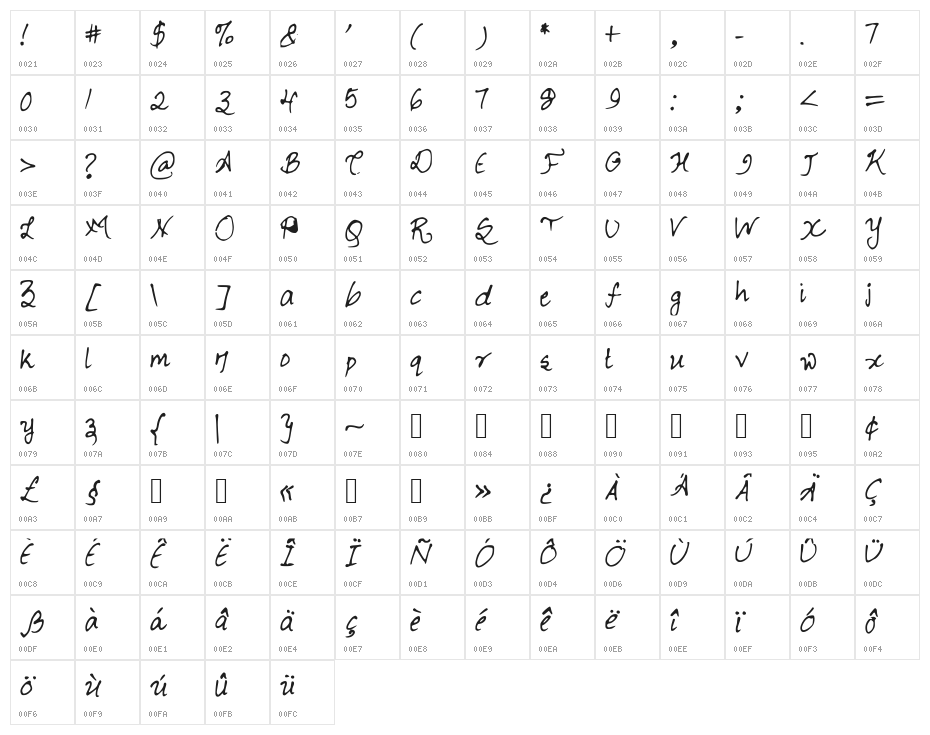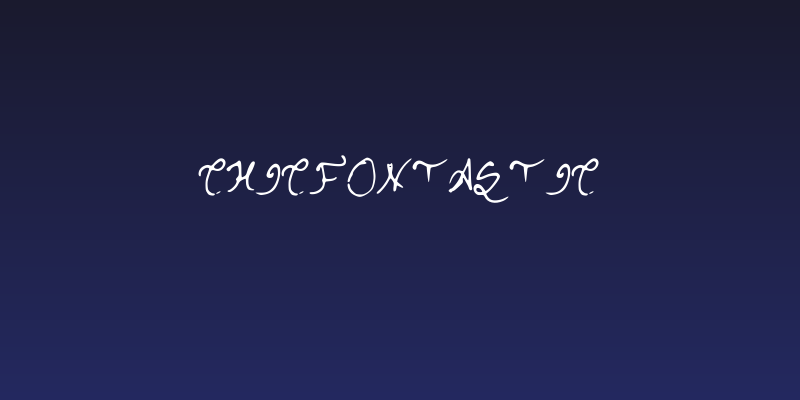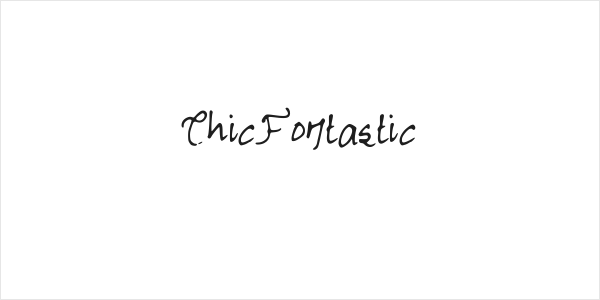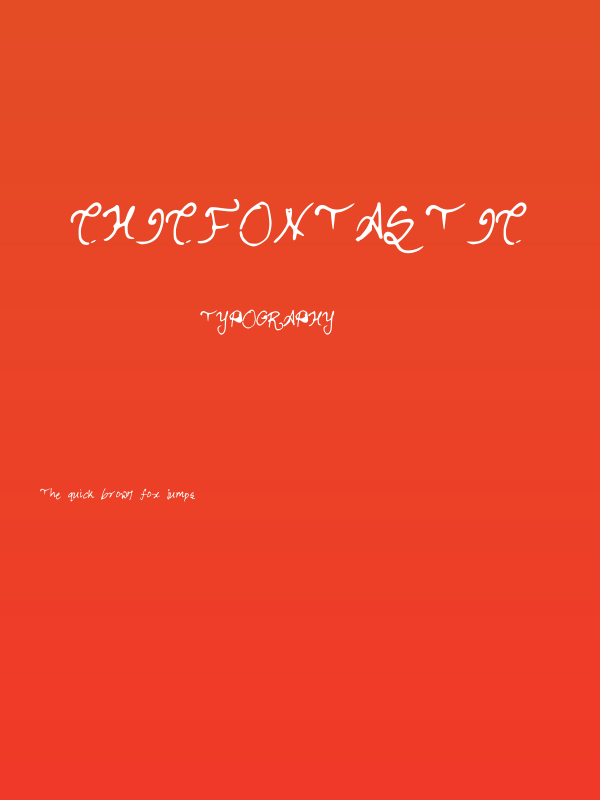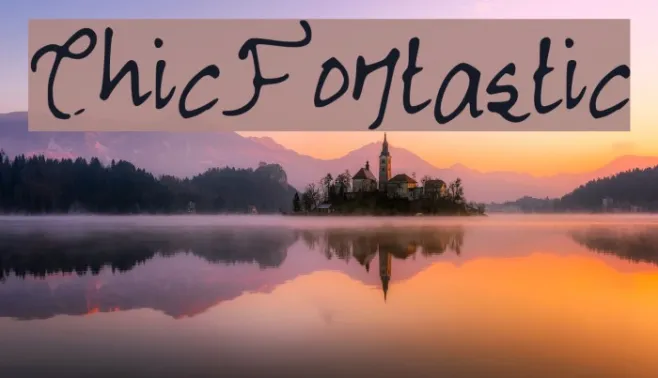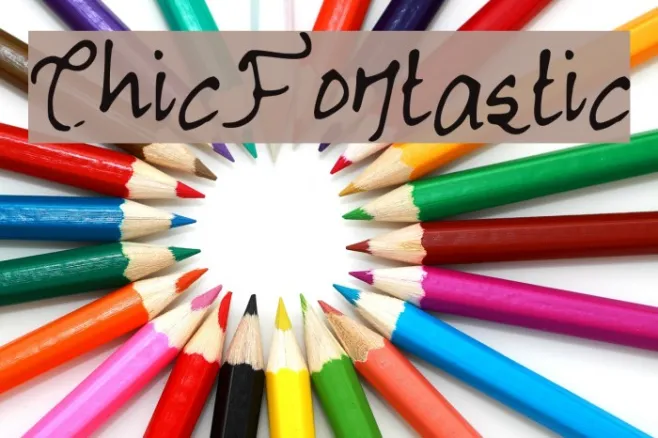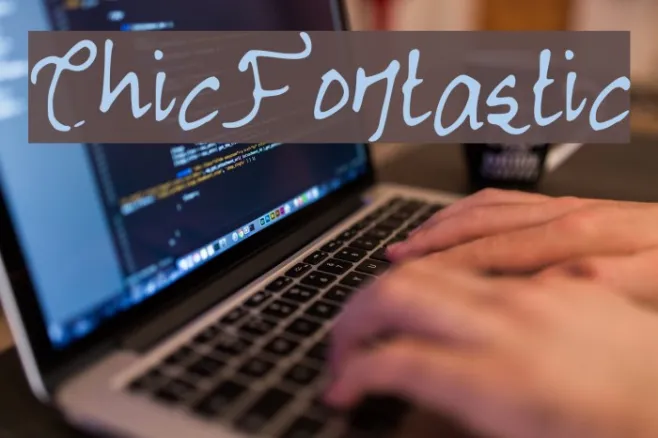
ChicFontastic Font
ChicFontastic Description
This font exudes a playful and artistic flair, characterized by its fluid, cursive strokes that mimic the elegance of handwritten script. Each letter is uniquely crafted with a sense of motion and spontaneity, making it ideal for creative projects. The uppercase letters are bold and expressive, while the lowercase letters maintain a consistent flow, enhancing readability. Numbers and special characters are designed with the same artistic touch, ensuring a cohesive look across all elements. The font's overall appearance is both stylish and approachable, perfect for adding a personal touch to any design.
| Proposed Projects | Ideal for wedding invitations, greeting cards, artistic branding, and creative posters. |